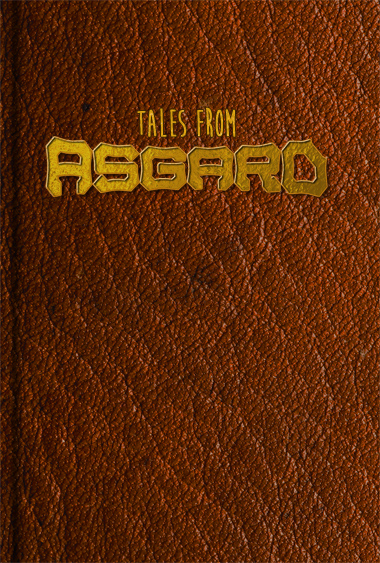
• ***Did you see the HORNS?***
Playing around with octagonal shapes. One child of this phase was "Zapotek", which Xenophilius mentioned completely right. Another one, beside some others , is this one. Somewhere in the back of my head this is inspired by the wonderful "fs Kronos" by will.i.ૐ. Not so much in it's look, but in it's heroic, oldfashioned feel. The feel it's purpose is decorating an epic fantasy novel :) I hope the upcoming sample can make this clearer. Enjoy
Hmm... Like Thor? I love it! It reminds me of Zapotek. 20/10.
How? Thats all I will ask....incredible
Well, will.i.ૐ was right. Its a great work. I would not change a thing. A good demo pic would make an impact. Your rating is still 100%. I look forward to see Asgardian on the TP list, first page. 10/10
This one has been waiting in the wings for ages, at last it has received the TP Frodo thought of ;) Great font and a well deserved TP, congratulations.
It gives the impression of something strong, resistant, proud, Nordic. Well done, the TP has come at last.